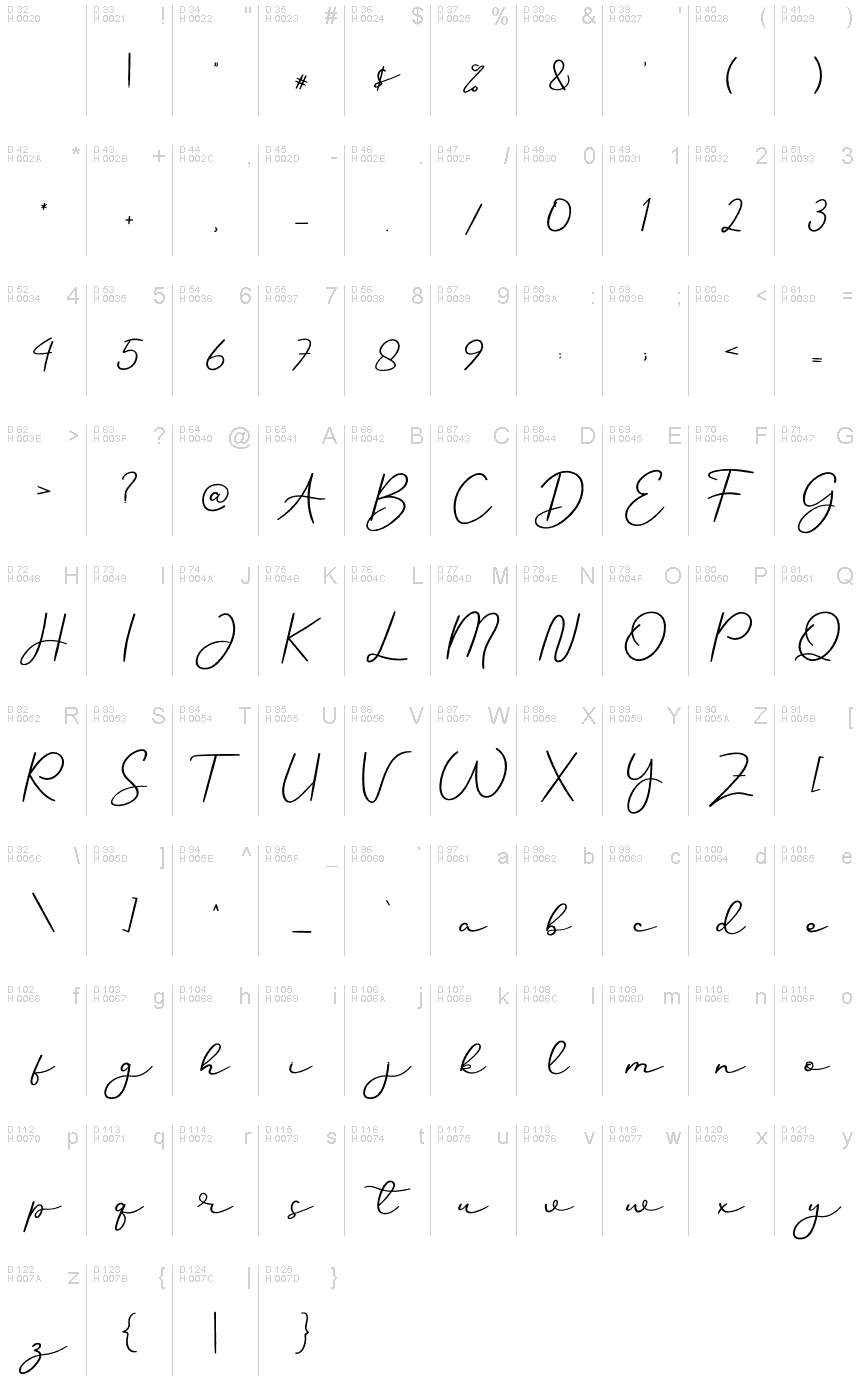
Sweet Sofia
Sweet Sofia, designed by Etik Fatimah, is a delightful handwritten font that adds a whimsical touch to any project. With its light weight, it exudes an air of elegance and grace.
Perfect for wedding invitations and feminine branding, this font captures the essence of romance and sophistication. Its fluid strokes and charming curves make it an ideal choice for greeting cards, fashion magazines, and beauty blogs. From Instagram quotes to logo design,
Sweet Sofia effortlessly adds a personal and artistic flair to your creations.